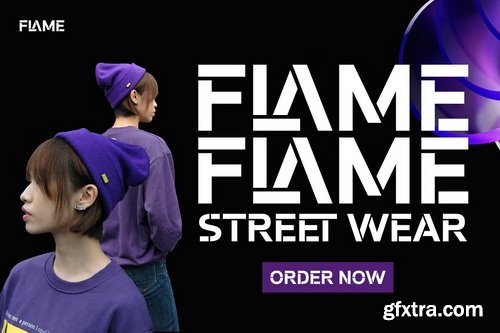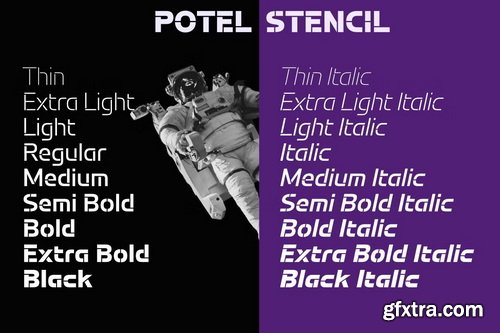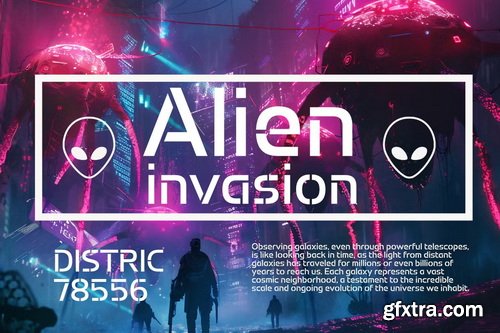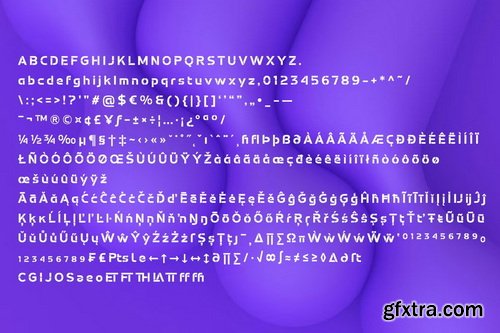
- Potel Stencil is a modern typeface family that blends a futuristic aesthetic with a strikingly unique cut-out feel. With 18 styles, ranging from Thin to Black, and including Italic variations for each weight, this font offers exceptional versatility for diverse design needs. Every character in Potel Stencil is precisely crafted, featuring distinctive cuts that convey a sophisticated and high-tech impression, making it an ideal choice for innovative and daring designs.
- The uniqueness of Potel Stencil makes it highly suitable for displays such as posters, film promotions, album covers, logotypes, and product branding. This font isn't just a design tool; it's a powerful visual statement capable of grabbing attention and leaving a lasting impression. For designers seeking to combine modern clarity with a bold, cut-out nuance, Potel Stencil is the perfect solution for creating unforgettable visual impact.